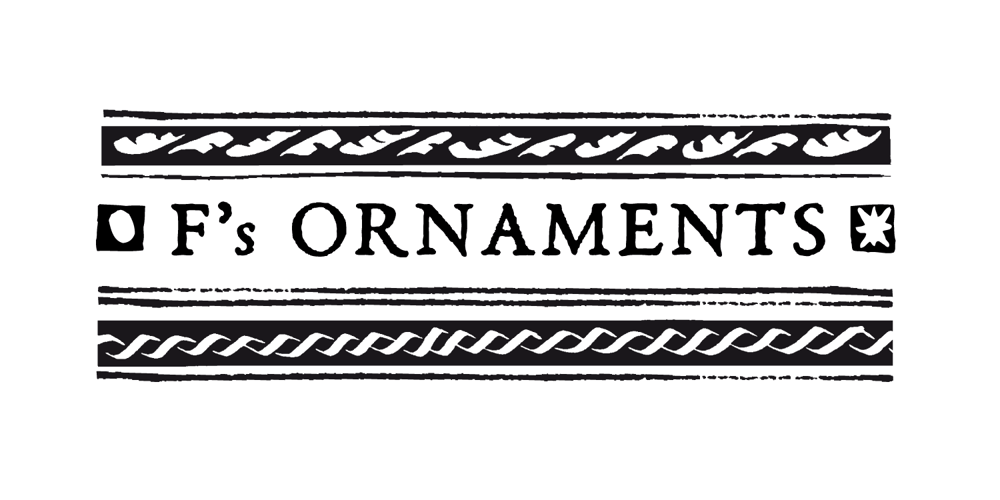
Fs Ornaments
Fs Ornaments font
Fs Ornaments Font Family was designed by published by Cuda Wianki. Fs Ornaments contains 3 styles and family package options. Fs ornaments are unique modular sets of ornaments that are based on ancient patterns and medieval woodcuts. They work very well on modern layouts as well. What is more You can use them not only as ornaments but also as borders. This complexity gives you a carefully planned tool with high decorative qualities. All this depends only on your imagination! With it you can add a genuine touch of distinction to every sophisticated layout but use them carefully. The basic set is Fs ornament 1 while Fs ornament 2 is a distorted version of it. Fs ornament 3 is a woodcut underlying that could be applied underneath ornaments or without them. The usage is very simple-You type them as you normally type letters but instead you get those great decoration! Easy isn’t it?